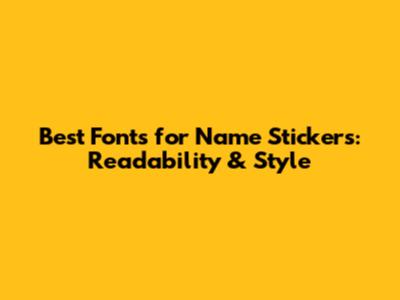
Choosing the perfect font for name stickers might seem like a small detail, but it can significantly impact how effective and appealing your stickers are. Whether you're labeling kids' belongings, organizing your office, or adding a personal touch to your products, the right font ensures readability and reflects your style. Let's dive into the world of fonts and discover the best options for your name stickers!
Why Font Choice Matters for Name Stickers
Selecting the right font for your name stickers is crucial for several reasons. Readability is paramount; if a name is hard to decipher, the sticker loses its purpose. Think about it – a stylish, swirly font might look great, but if it takes someone five seconds to figure out what it says, it’s not the best choice. Especially for kids' items, you want fonts that are clear and easily recognizable, so their teachers and friends can quickly identify their belongings.
Aesthetics also play a big role. The font you choose can convey a certain vibe or personality. A playful, rounded font might be perfect for a child’s sticker, while a clean, modern font could be ideal for professional use. Consider the overall look you’re trying to achieve and select a font that aligns with it.
Durability is another factor, believe it or not. Some fonts, particularly those with very thin lines, might not hold up well when printed on small stickers or when exposed to wear and tear. Thicker, more robust fonts tend to be more durable and maintain their legibility over time. Also, think about the printing method. Some intricate fonts might lose detail when printed using certain techniques, so keep that in mind when making your selection.
Brand Consistency is also very important. If you're using name stickers for your business, you'll want a font that matches your brand's existing fonts. This will create a sense of cohesion and professionalism, making your brand more memorable and recognizable. Consistency in branding helps build trust and reinforces your identity with your customers.
Personalization is why many people use name stickers in the first place! The font you choose is a key element in making your stickers feel unique and tailored to the individual. Whether it's a favorite style, a reflection of their personality, or simply a font that they find visually appealing, personalization makes the sticker feel more special and meaningful.
Top Font Styles for Maximum Readability
When it comes to name stickers, readability is king. Here are some top font styles that prioritize clarity without sacrificing style:
1. Arial
Arial is a classic, clean sans-serif font that’s universally recognized and highly readable. Its straightforward design makes it an excellent choice for ensuring names are easily identifiable, even from a distance. Arial works well in various sizes and on different backgrounds, making it a versatile option for all kinds of name stickers. Its simplicity ensures that the focus remains on the name itself, without any distracting embellishments. For those prioritizing clarity above all else, Arial is a reliable and effective choice.
Plus, Arial is a safe bet because it's widely available across different platforms and devices. You don't have to worry about compatibility issues or font substitutions when using Arial. It’s a no-fuss, dependable option that gets the job done without any headaches. Whether you're printing at home or using a professional printing service, Arial will consistently deliver clear and legible results.
Also, Arial's neutrality makes it suitable for a wide range of applications. It doesn't convey any specific tone or style, which means it can be used for everything from children's labels to professional identification tags. Its adaptability is one of its greatest strengths, making it a go-to choice for anyone who needs a font that's both functional and unobtrusive. It’s a true workhorse in the world of fonts!
2. Helvetica
Helvetica is another sans-serif font celebrated for its clarity and modern aesthetic. Similar to Arial, Helvetica offers excellent readability and a clean appearance. It’s slightly more refined than Arial, with subtle differences in letterforms that make it a popular choice among designers. Helvetica’s neutrality allows it to blend seamlessly into any design, making it a versatile option for name stickers. Its balanced proportions and consistent letter spacing contribute to its overall legibility, ensuring that names are easily readable at a glance.
Helvetica's widespread use in corporate branding and signage speaks to its reliability and professionalism. Choosing Helvetica for your name stickers can lend a sense of sophistication and credibility. Whether you're labeling office supplies or creating personalized gifts, Helvetica adds a touch of elegance without being overly flashy. Its understated design ensures that the focus remains on the content, while still maintaining a polished and professional look.